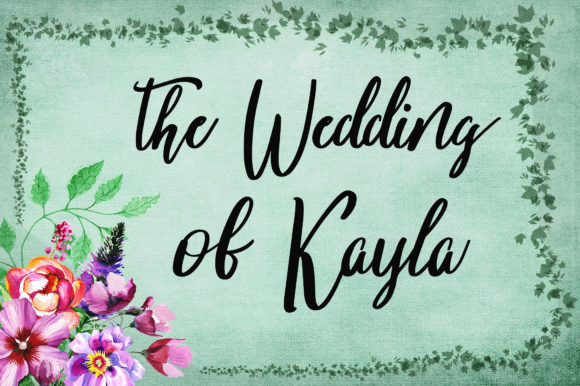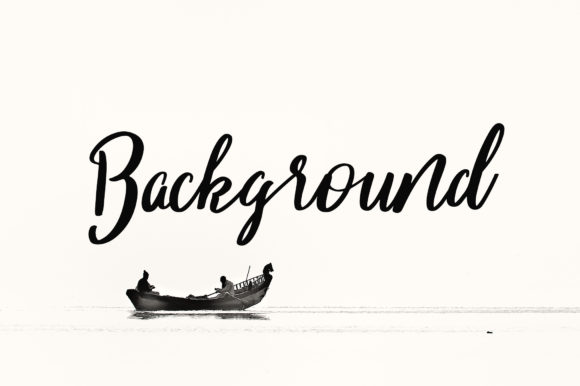
Christmas Wish Font
db-ku.com - Script & Handwritten -- Christmas Wish is a lovely and timeless handwritten font. It is the best choice for creating eye catching logos, branding and quotes. Every letter has a unique and beautiful touch, which will make your design come alive!